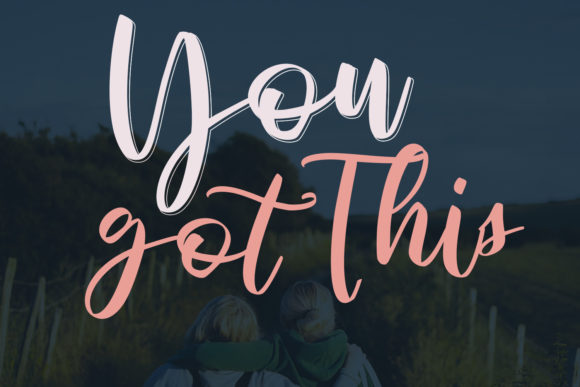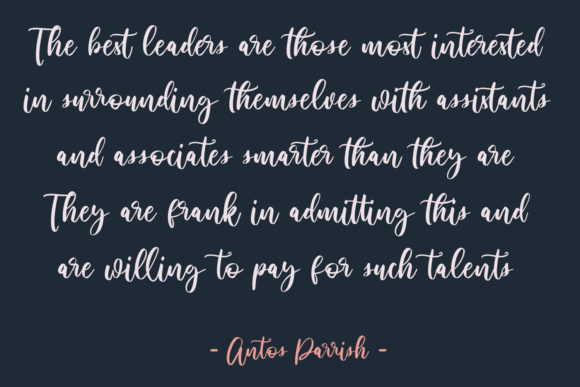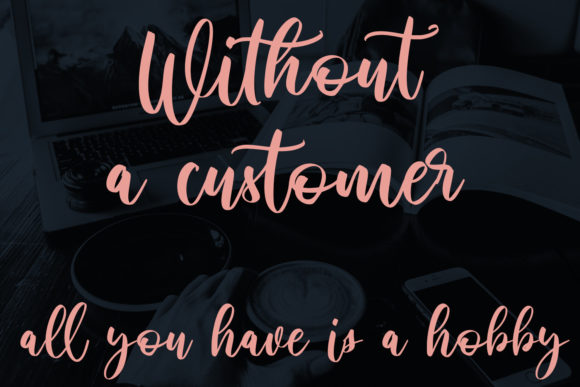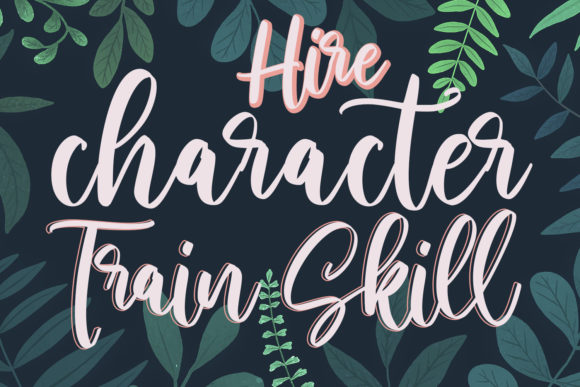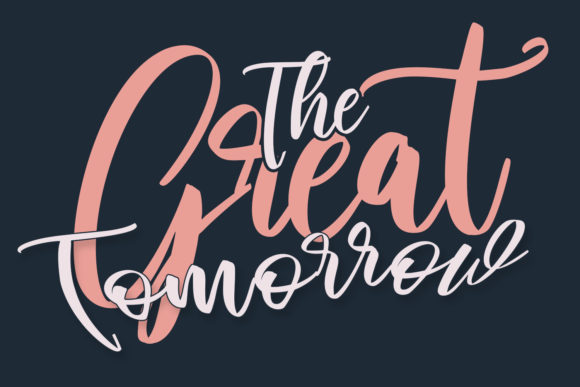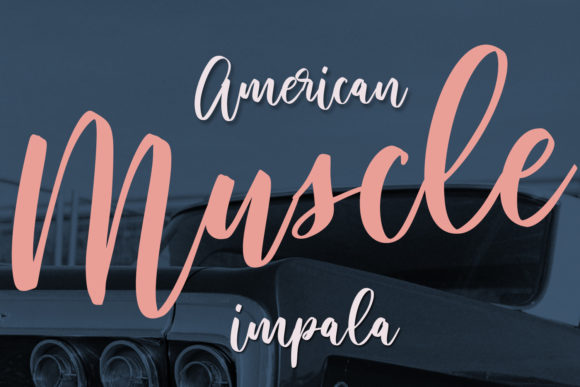
Introducing Cathelyne Script Font: Elevate Your Designs with a Casual yet Elegant Touch
In the world of typography, a font can make or break a design. It’s the perfect blend of style, elegance, and personality that can elevate a project from ordinary to extraordinary. If you’re on the hunt for a font that exudes a casual yet sophisticated vibe, look no further than the Cathelyne Script Font. This charming script font is designed to add a touch of whimsy and fun to your designs, making it an excellent choice for crafters and designers alike.
What Makes Cathelyne Script Font Stand Out?
Cathelyne Script is a casual script font that boasts a unique combination of characteristics, setting it apart from other fonts in its category. Here are some of its standout features:
- Slant High Contrast Strokes: The font features beautiful, high contrast strokes with a subtle slant, giving it a dynamic and elegant feel.
- Fun Characters: Cathelyne Script includes a range of fun and playful characters that can add a touch of personality to your designs.
- Ligatures and Alternates: The font comes with ligatures and alternates, allowing you to create unique and interesting text combinations.
Why Choose Cathelyne Script Font?
So, why should you choose Cathelyne Script Font for your next project? Here are just a few reasons:
- Versatility: Cathelyne Script Font is incredibly versatile, making it suitable for a wide range of projects, from branding and advertising to packaging and digital media.
- Unique Style: The font’s unique style and character set ensure that your designs will stand out from the crowd.
Cathelyne Script Font is an excellent choice for designers and crafters who want to add a touch of elegance and whimsy to their projects. Whether you’re working on a branding project, creating social media graphics, or designing packaging, this font is sure to impress.
For designers, Cathelyne Script Font offers a range of possibilities, from:
- Branding: Use the font to create unique and memorable brand identities.
- Advertising: Add a touch of elegance and sophistication to your ad campaigns.
- Digital Media: Use the font to create engaging and interactive digital content.
For crafters, Cathelyne Script Font is perfect for:
- Paper Crafting: Use the font to create beautiful and unique paper crafts, such as cards and invitations.
- Journaling: Add a touch of elegance to your journal pages with this beautiful script font.
- DIY Projects: Use the font to create custom labels, signs, and other DIY projects.
- Casual script font
- Slant high contrast strokes
- Fun characters
- Ligatures and alternates
Recommended for:
- Designers
- Crafters
- Branding and advertising
- Packaging and digital media
- Paper crafting and journaling